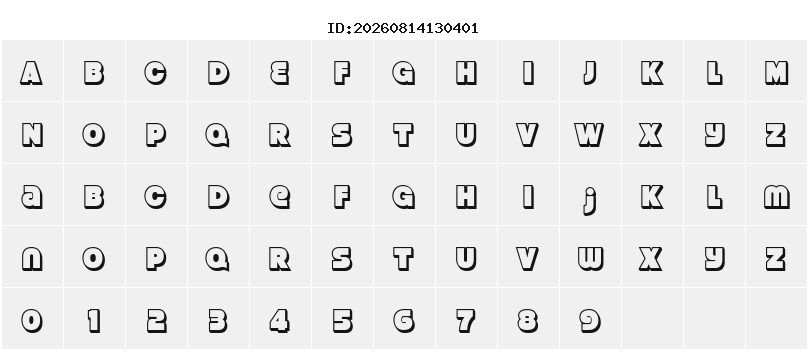
• Font Name: Strenuous Three D
• Designer: Ray Larabie
About Strenuous Three D.ttf
Strenuous Three D.ttf is a modern, elegant sans-serif font designed for ultimate readability and visual harmony. Perfect for branding, headlines, web design, and print materials.